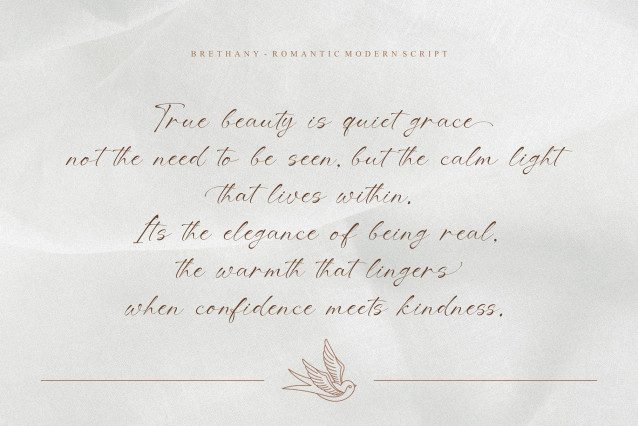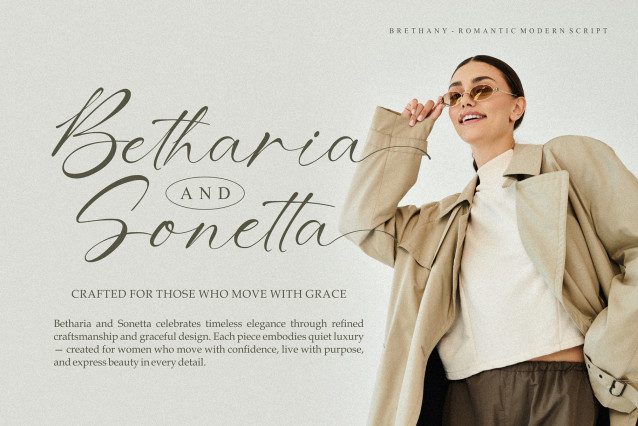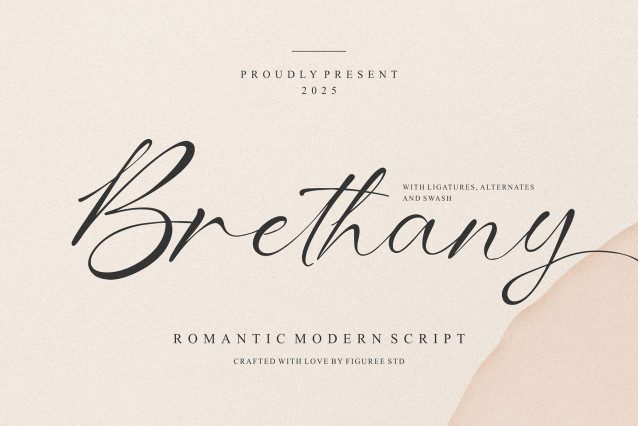
Brethany Script Font
Brethany Script Font was crafted to express beauty, intimacy, and timeless sophistication. Every curve in its strokes whispers elegance, making it the perfect romantic font for wedding invitations, brand identities, greeting cards, and editorial design.
As a romantic modern script font, Brethany blends the softness of handwriting with the refinement of modern calligraphy. It’s ideal for designers who seek both delicacy and clarity in their creative projects.